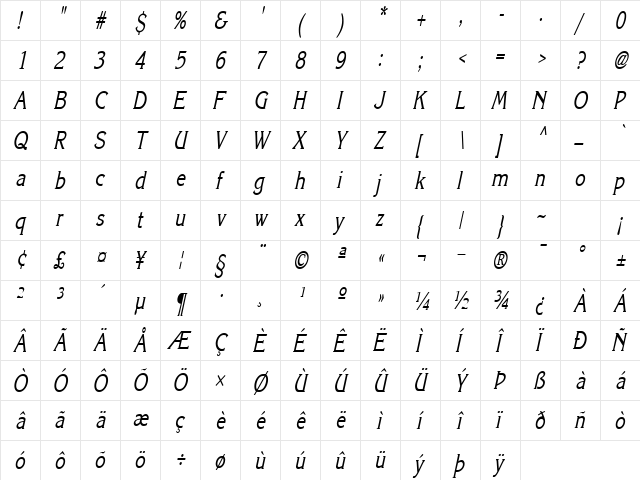
KaneCondensed Italic Font Preview
Design Context for KaneCondensed Typeface
KaneCondensed offers clean, dependable letterforms without strong stylistic allegiance, making it a practical choice for designers who need flexibility. The slanted form adds forward momentum and visual energy. The condensed width makes it efficient for tight spaces without sacrificing legibility.
Pro Tip: Try KaneCondensed for annotation and caption copy alongside an upright companion — the contrast in angle creates a dynamic but ordered typographic system.